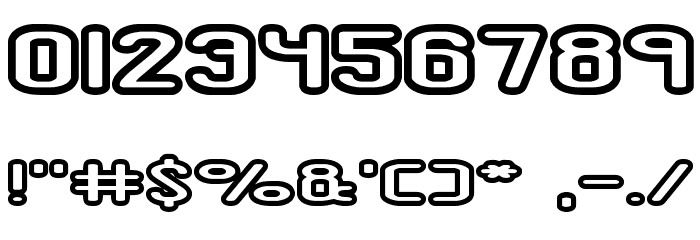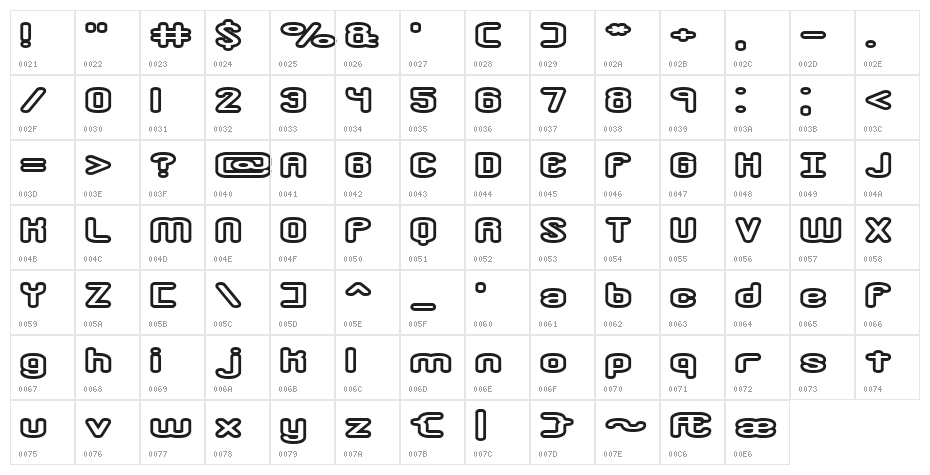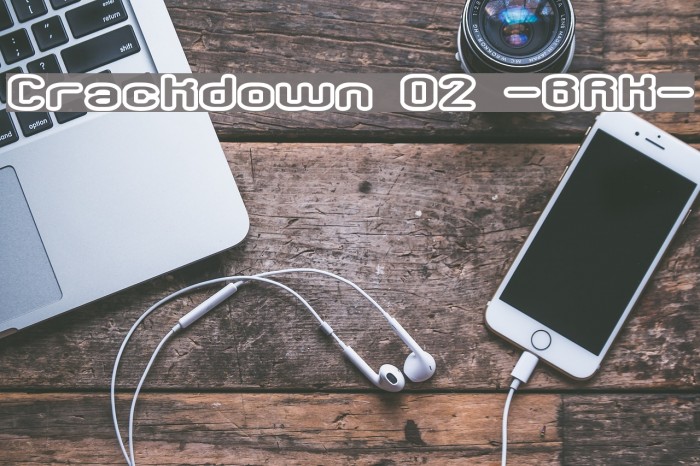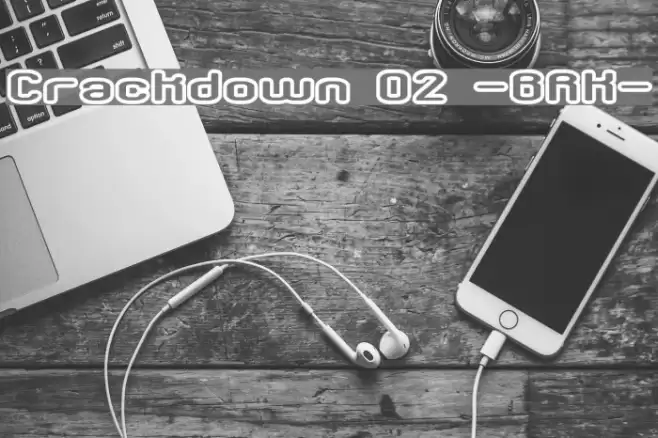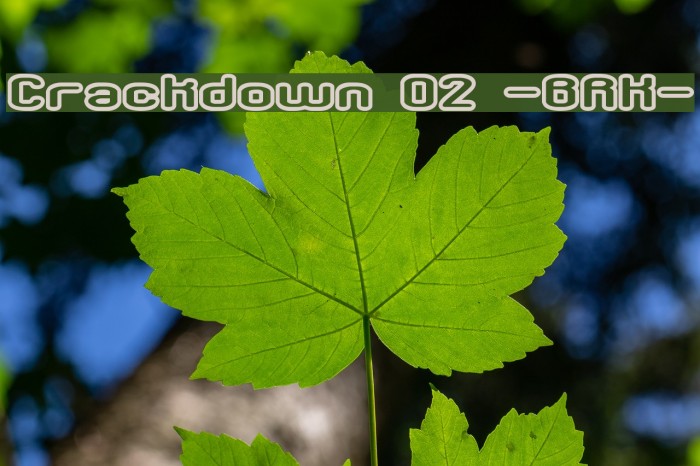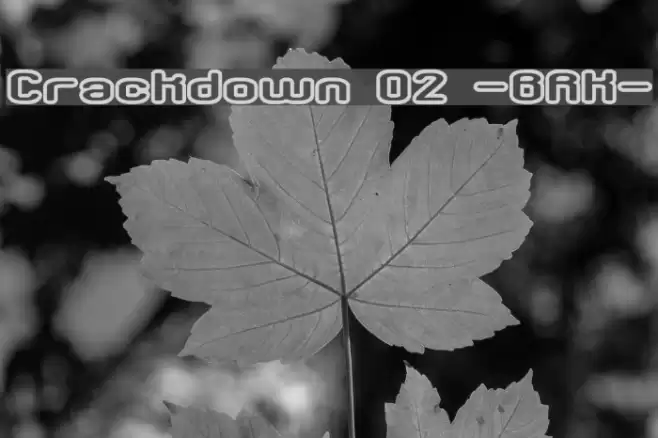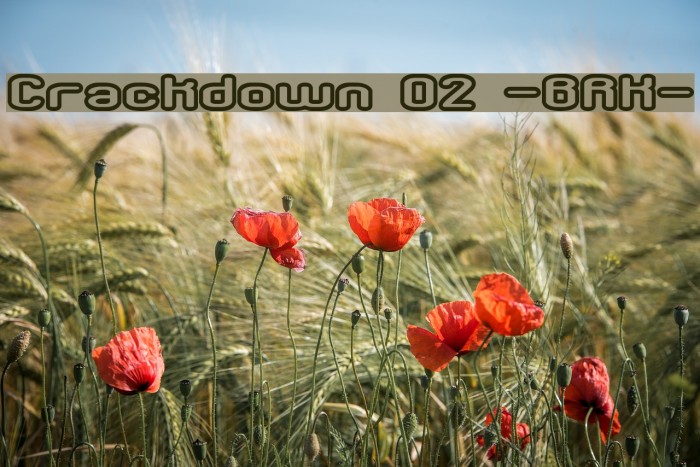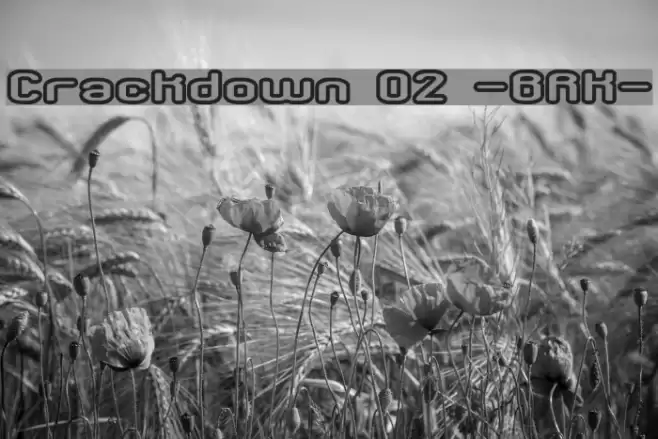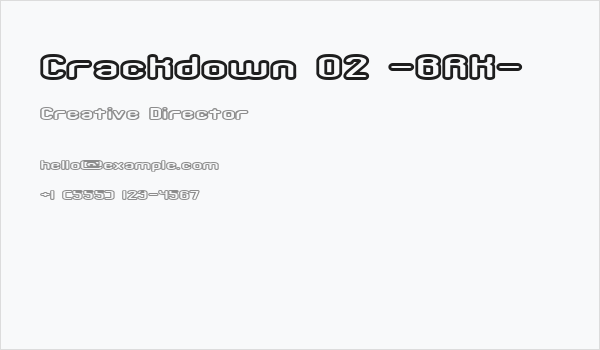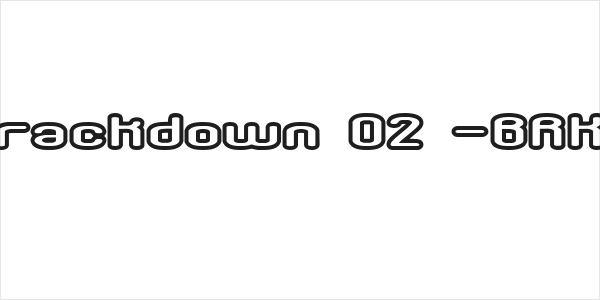
Crackdown O2 -BRK- Font
Crackdown O2 -BRK- Description
This font features a bold, rounded outline style that gives it a playful and modern appearance. The characters are evenly spaced with a consistent thickness throughout, creating a uniform look. The uppercase and lowercase letters maintain a similar width, enhancing readability. The numbers and special characters follow the same design principles, ensuring cohesion across all elements. Its unique outline effect makes it stand out, suitable for eye-catching designs.
Proposed ProjectsIdeal for posters, logos, headlines, and any design requiring a bold and playful touch.